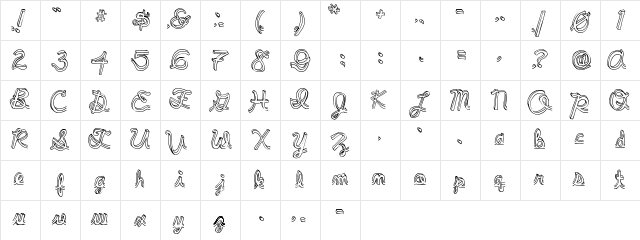
pee pants script Regular Font Preview
pee pants script Regular
Design Context for pee pants script Typeface
pee pants script brings a calligraphic fluidity to the page — its connecting strokes and expressive curves give it an unmistakably human quality.
Font Pairing: Combine pee pants script with a simple geometric sans for maximum contrast — the tension between flowing curves and clean structure is a classic typographic pairing.
Pro Tip: Use pee pants script for short runs of text — names, titles, or taglines. Extended body copy in script faces tires the eye quickly.